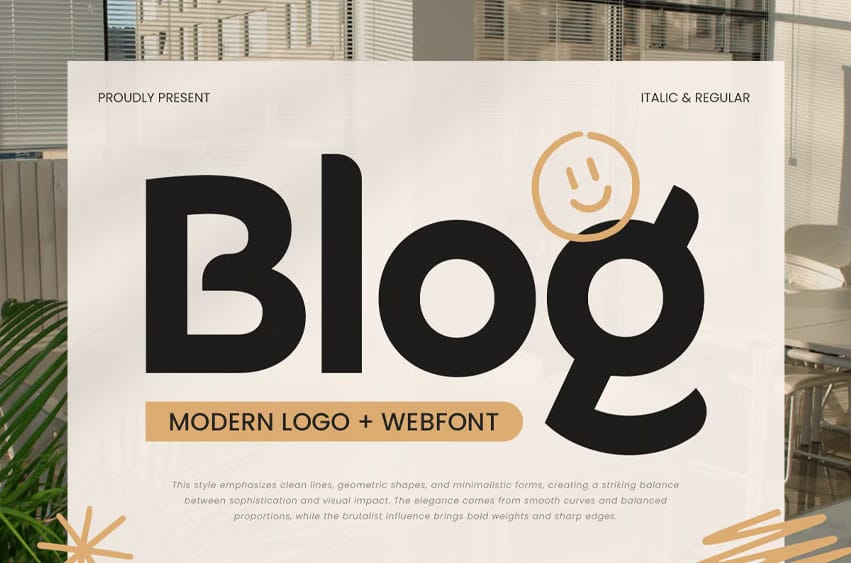
Blog Font is a modern logo web font crafted for clean and professional digital branding. With its sleek, minimal, and highly legible design, this font is perfect for website headers, startup logos, corporate identities, UI/UX design, and social media graphics.
Designed for versatility and clarity, Blog offers a smooth and contemporary aesthetic that works well across web platforms, mobile applications, and digital advertisements. Its balanced proportions and refined letterforms ensure excellent readability, making it an ideal choice for tech brands, lifestyle blogs, and modern businesses looking to create a polished and engaging online presence.
Enhance your digital branding with Blog, a font that combines modernity, simplicity, and elegance for high-impact web typography.
Blog – Modern Logo Web Font Features:
- Clean, minimal, and modern letterforms
- Ideal for web design, branding, and digital interfaces
- Uppercase and lowercase letters